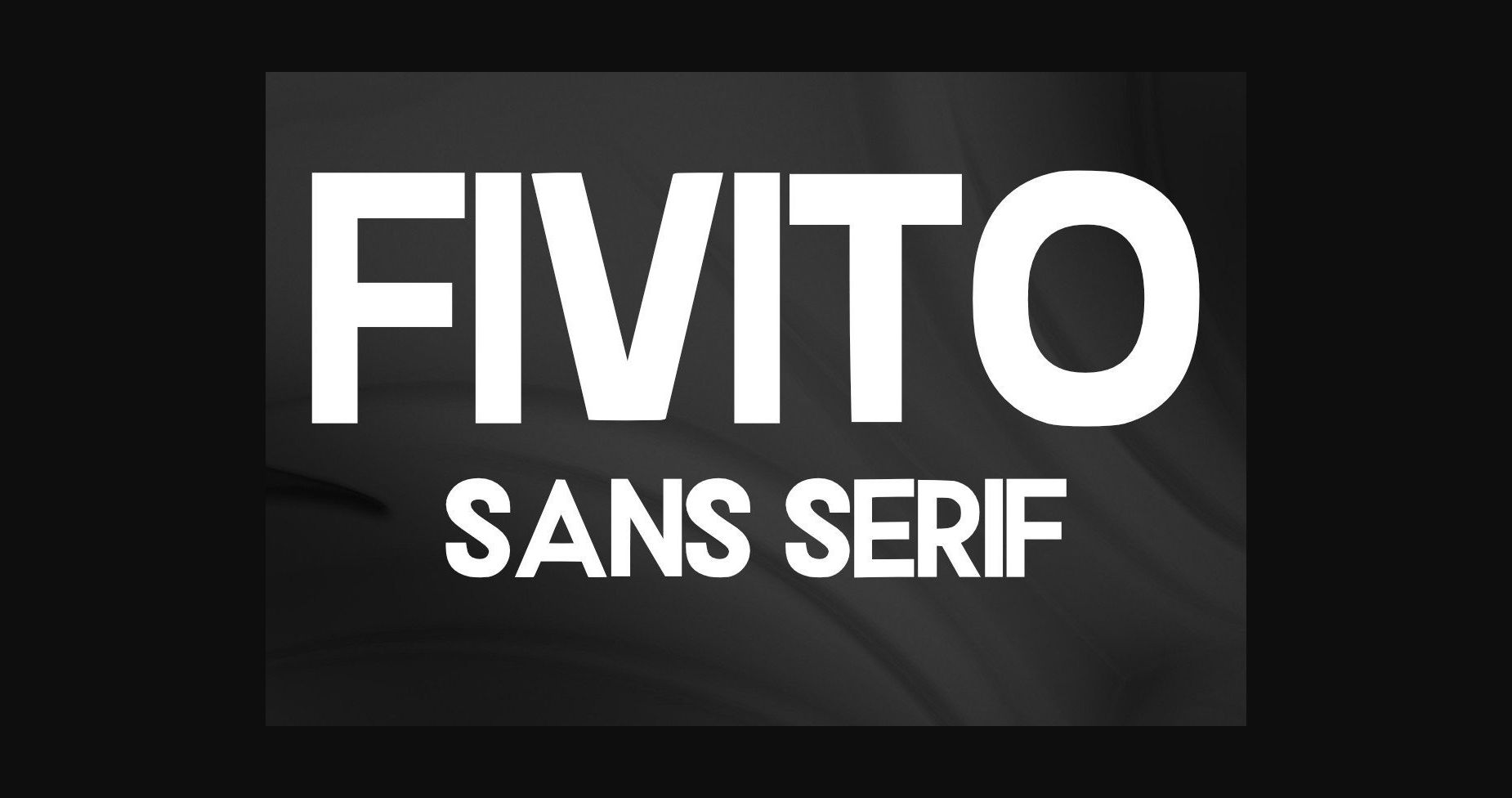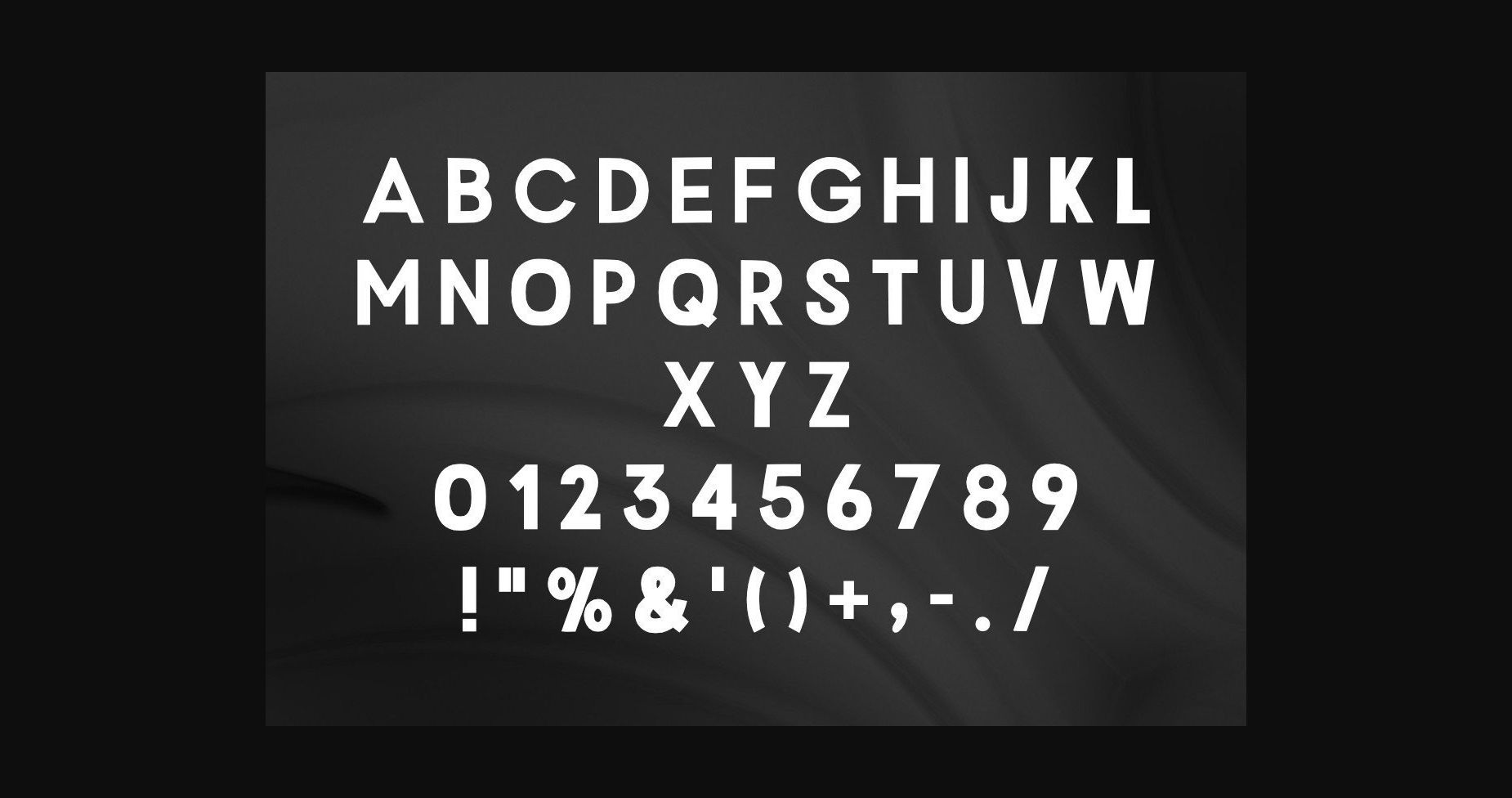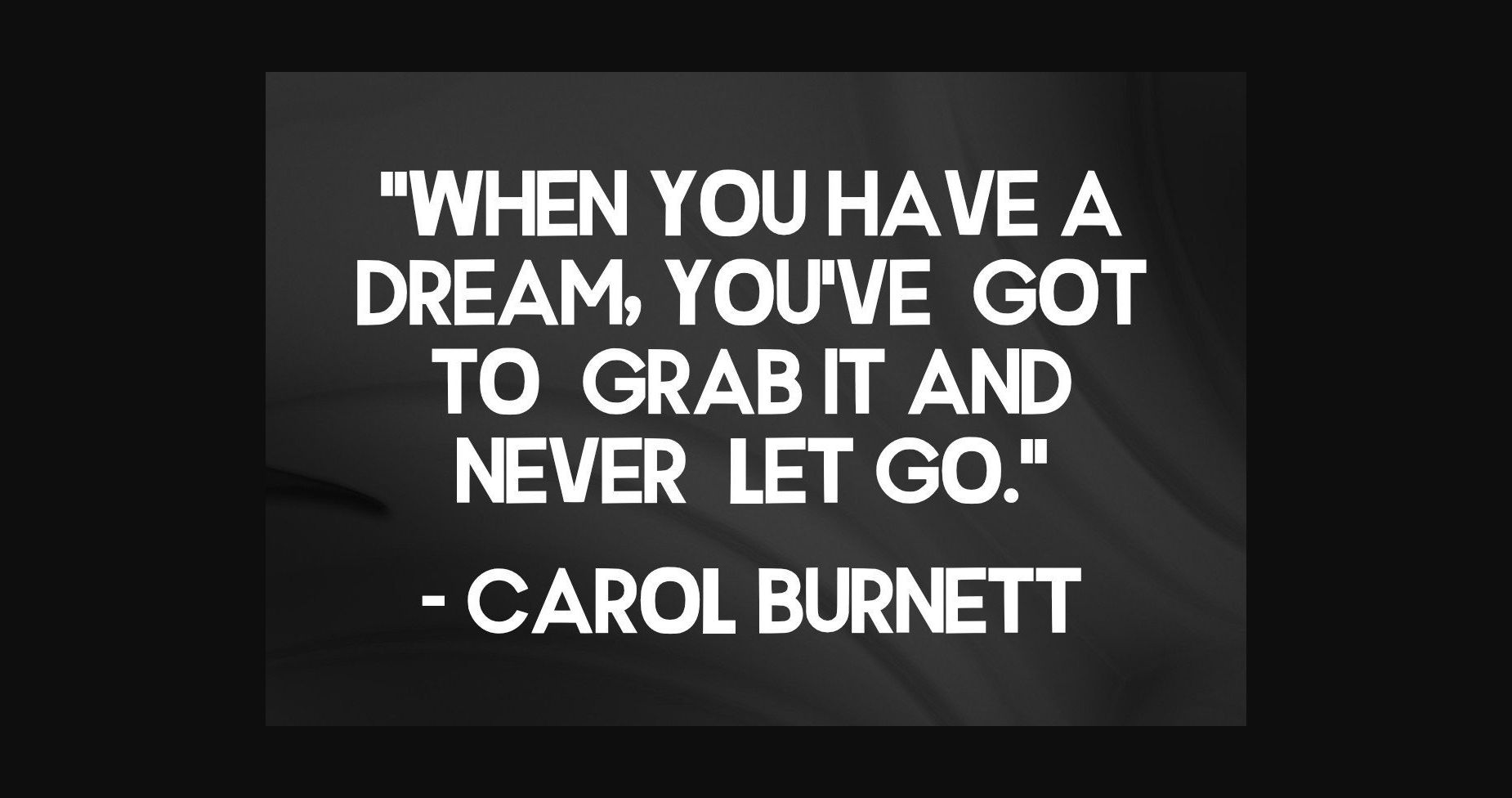
HomeSans Serif FontsFivito Font Sans Serif Fonts Fivito Font FacebookTwitterPinterestWhatsApp 1 of 5 ... Fivito Font Poster 2... Fivito Font Poster 3... Fivito Font Poster 4... Fivito Font Poster 5... About Fivito Font Fivito is an all-caps sans serif font that will impress you with its versatility. Whether you use it for logos, branding, and web heading, this font will be an amazing choice. DOWNLOAD NOW People also explored Friendly Font Mojokerto Font Sinffonia OT Deerliona Font Lovely Christmas Font Ashemore Softened Super Family Diesel Rudolf Script Font Moranhill Font Marie Honey Font 262 0 TagsFivitoFivito Font Previous articleTele Chamia FontNext articleInner Beauty Font LEAVE A REPLY Cancel reply Comment: Please enter your comment! Name:* Please enter your name here Email:* You have entered an incorrect email address! Please enter your email address here Website: Save my name, email, and website in this browser for the next time I comment. Personal Use Free Adelaide Personal Use Free Read more about this font Numberpile Personal Use Free Read more about this font Rakesly Personal Use Free Read more about this font Letter Hanger Personal Use Free Read more about this font BLOG Free Fonts Risk: Why Free Fonts Can Be Dangerous for Designers Free Fonts Risk: Why Free Fonts Can Be Dangerous for Designers Using free fonts is a common practice in web and graphic design. However, the... Exploring Font Trends Top 7 Google Fonts Alternatives for Faster and Privacy-Friendly Web Design (2025) Free vs Paid Fonts: Why Investing in Premium Fonts Is Worth It